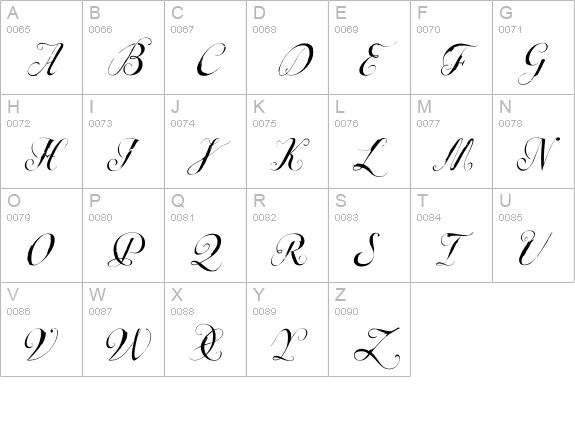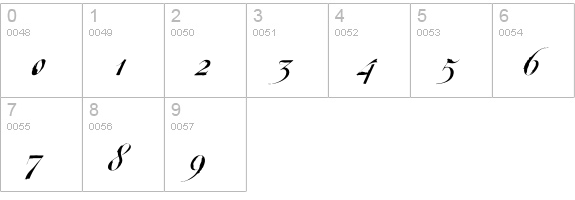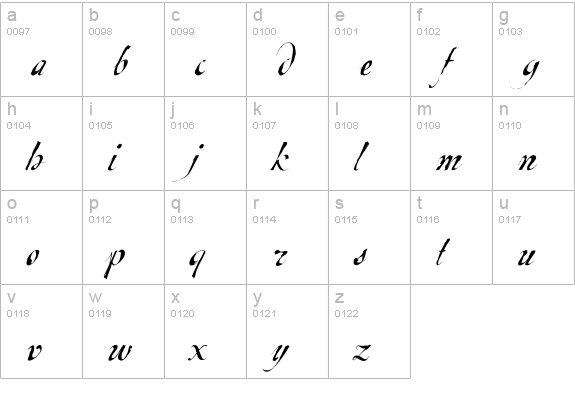
Escrita-Principal font is a stunning and elegant typeface that exudes sophistication and style. With its clean lines and classic design, this font is perfect for a wide range of projects, from branding to editorial design. The timeless appeal of Escrita-Principal font makes it a versatile choice for any creative endeavor. What sets Escrita-Principal font apart is not only its exquisite design but also the fact that it is available for free download at FontsMarket.com. This means that you can easily access this high-quality font without any cost, making it a valuable addition to your font library. Whether you are working on a logo, website, or print design, Escrita-Principal font will elevate your project and give it a touch of sophistication. Its versatility and timeless appeal make it a must-have font for any designer looking to add a touch of elegance to their work. Download Escrita-Principal font for free today and elevate your designs to the next level.